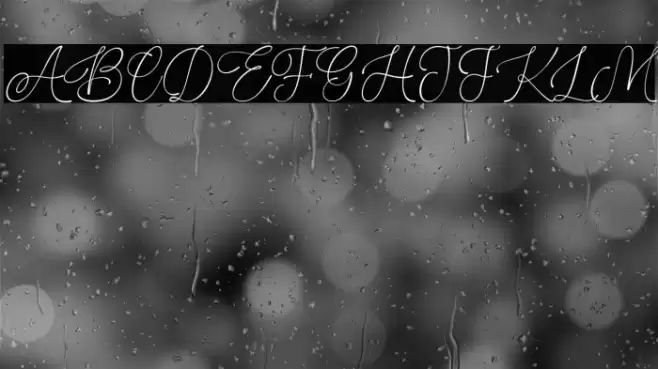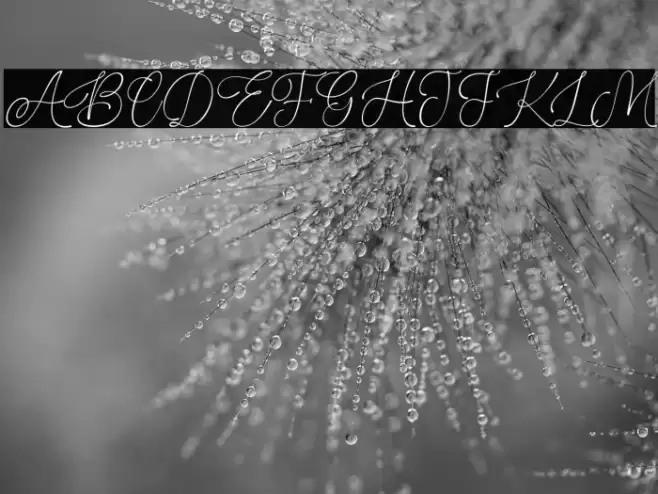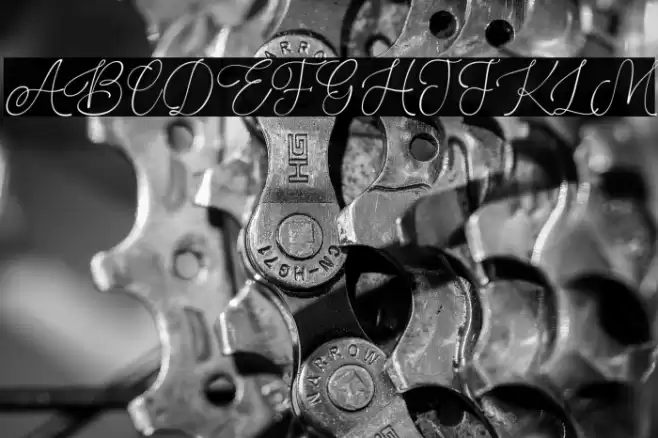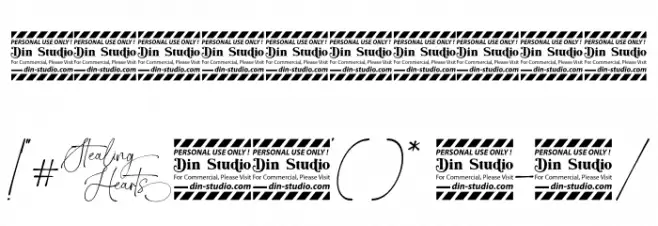
Stealing Hearts Personal Use Font
Stealing Hearts Personal Use Description
This font features an elegant and flowing script style, characterized by its delicate and intricate letterforms. The uppercase letters are gracefully connected, with a consistent slant that adds a sense of motion and fluidity. The lowercase letters maintain this fluidity, with some letters featuring unique loops and swashes that enhance the overall aesthetic. The font's thin strokes and high contrast between thick and thin lines give it a refined and sophisticated appearance. It is well-suited for projects that require a touch of elegance and personal flair.
An elegant, flowing script font with high contrast and intricate letterforms from Uncategorized fonts.
- Proposed Projects: Ideal for wedding invitations, greeting cards, branding, and elegant packaging designs.
- Weight: Light
- Overall Style: Elegant
- Use Case: Logos, Invitations, Decorative text